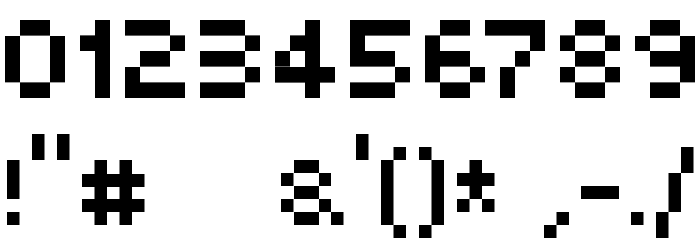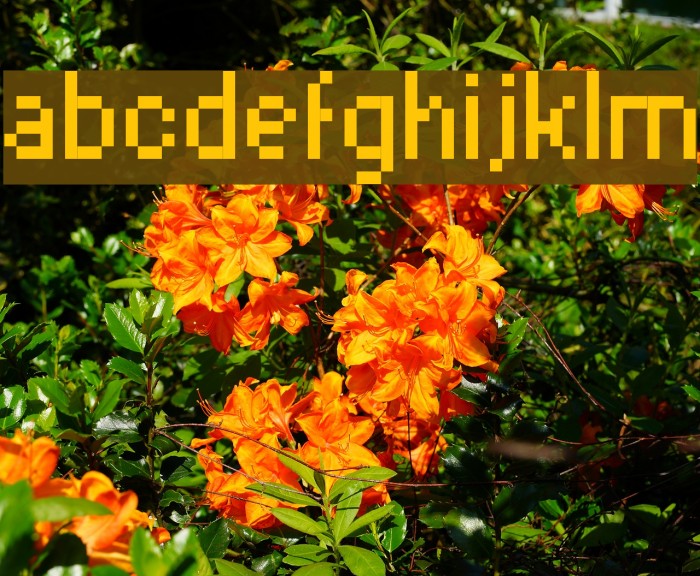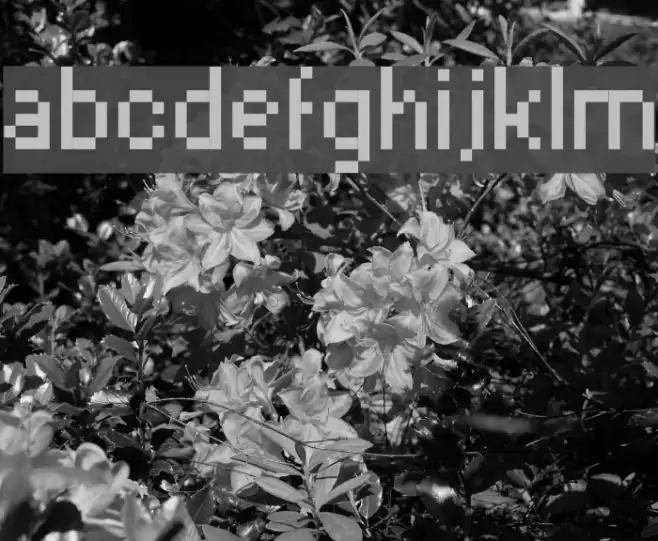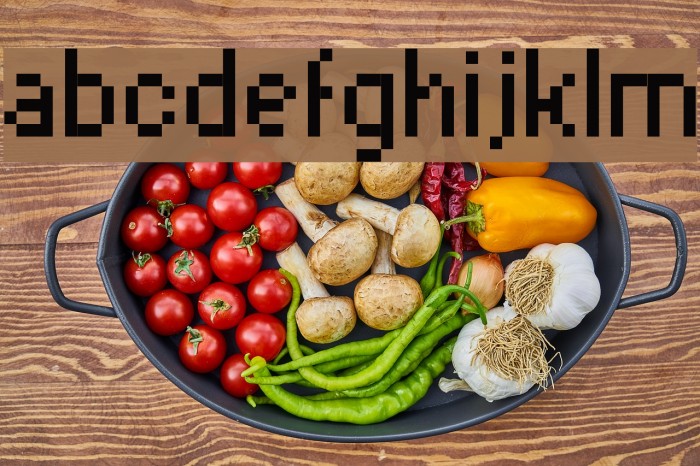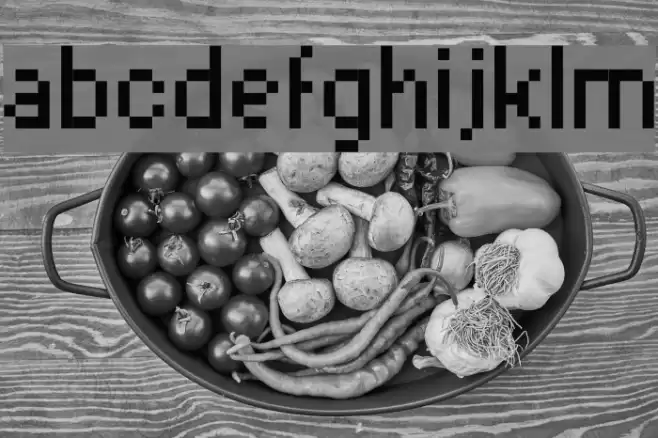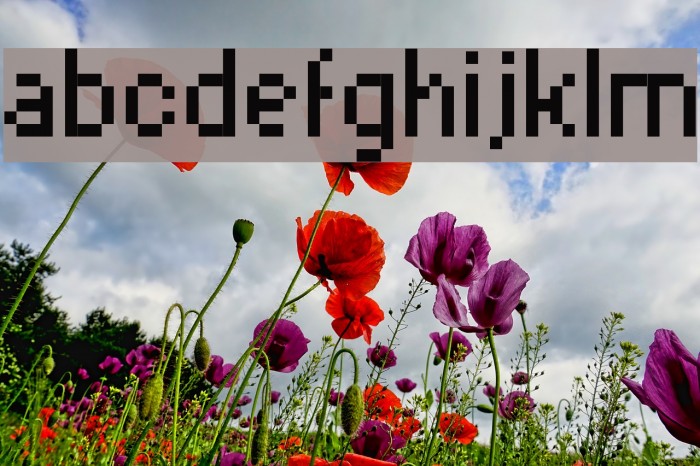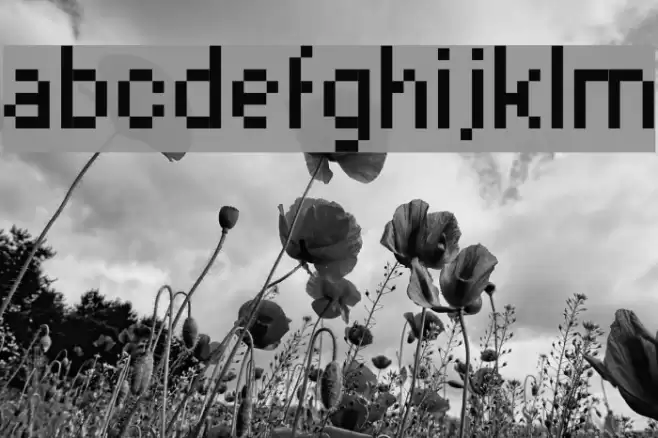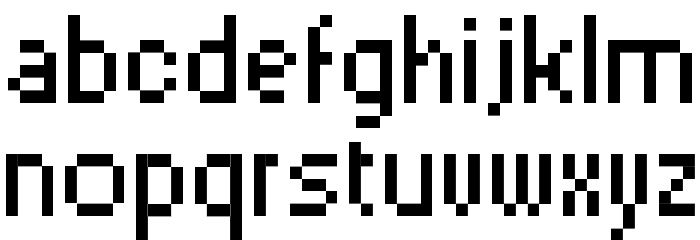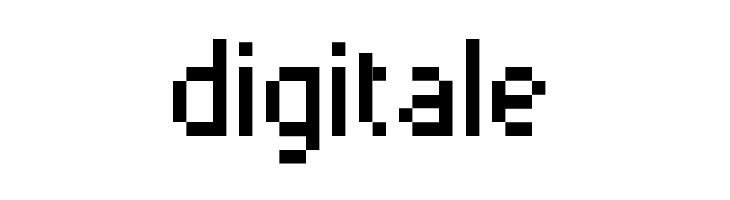
PixelSix00 Font
PixelSix00 Description
This font features a pixelated, blocky design reminiscent of early digital displays and retro video games. Each character is constructed with a uniform grid pattern, giving it a distinctly digital and geometric appearance. The characters are monospaced, ensuring equal width for each letter and symbol, which enhances its technical and mechanical feel. The font's simplicity and clarity make it highly legible, even at smaller sizes. Its nostalgic aesthetic is perfect for projects that aim to evoke a sense of vintage computing or classic arcade games.
| Overall Style | Vintage |
| Use Case | Logos, Digital displays, Video games |
| Proposed Projects | Ideal for retro video games, digital art projects, tech-themed designs, and nostalgic branding. |